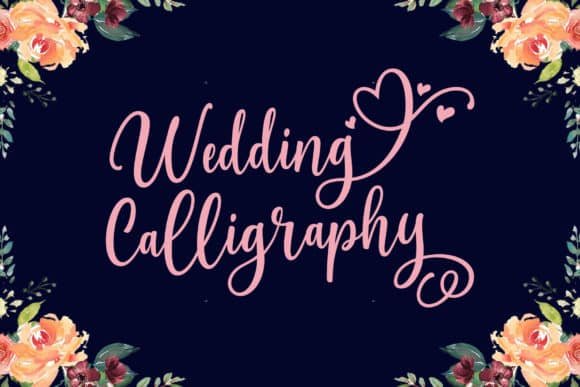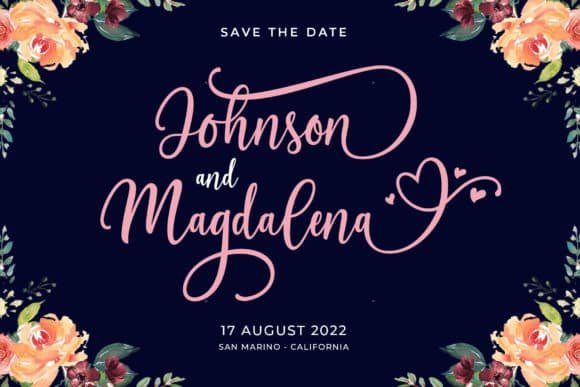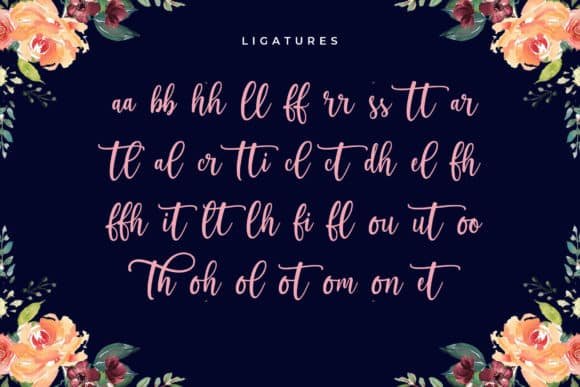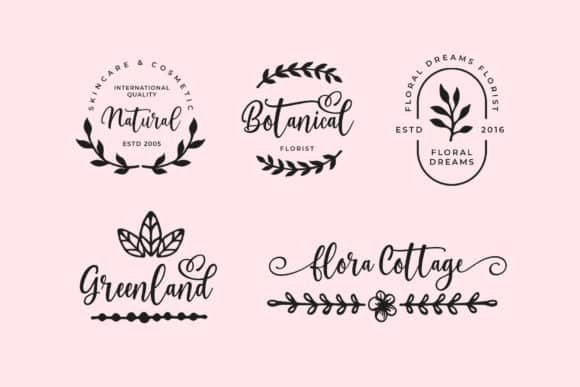
Ayshana Script Font
Ayshana Script is a lovely and timeless handwritten font. It is the best choice for creating eye-catching logos, branding, and quotes. Ayshana Script is PUA encoded, which means you can access all of the glyphs and swashes with ease!